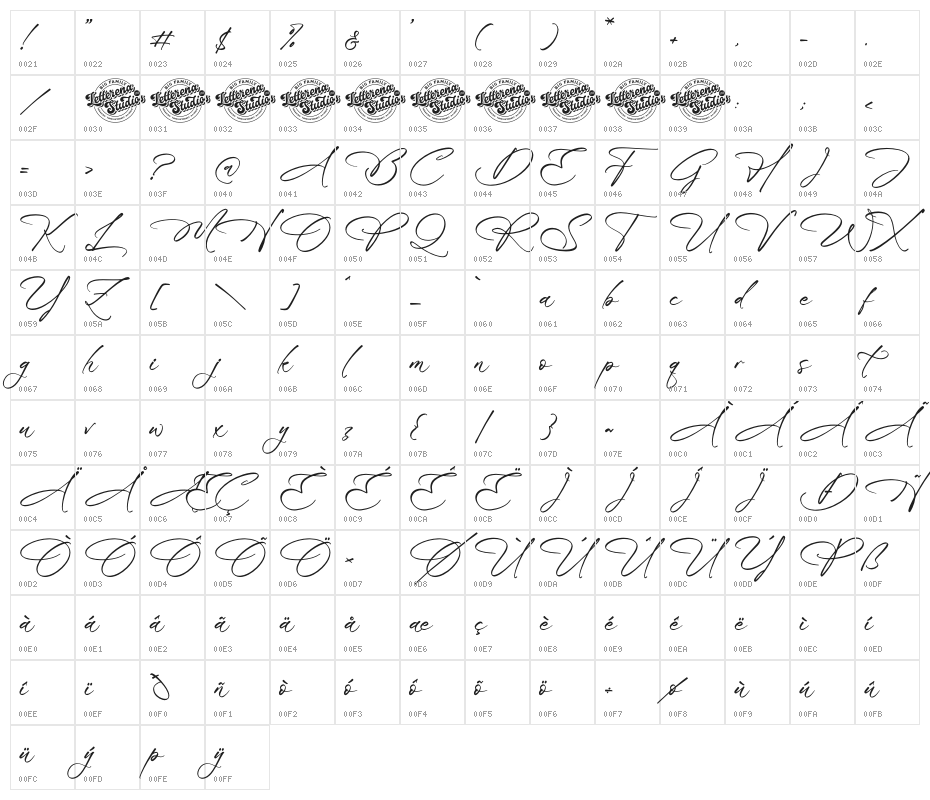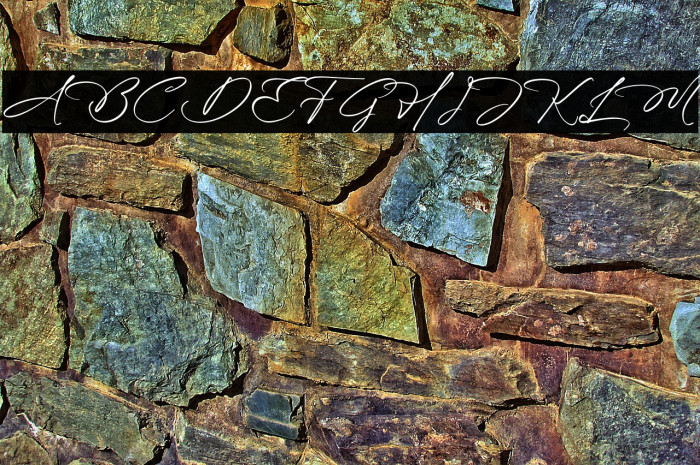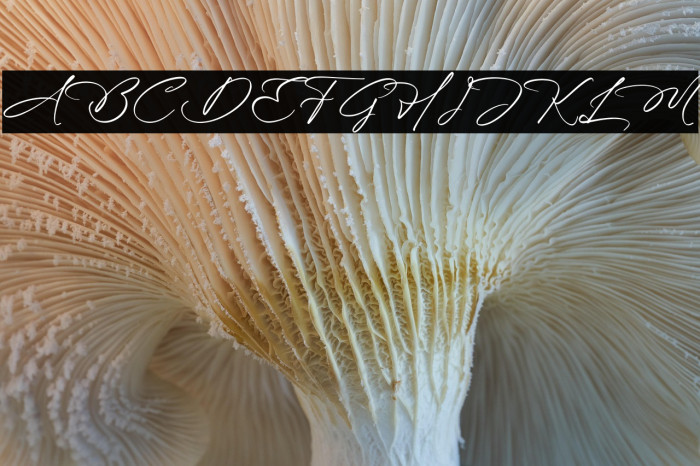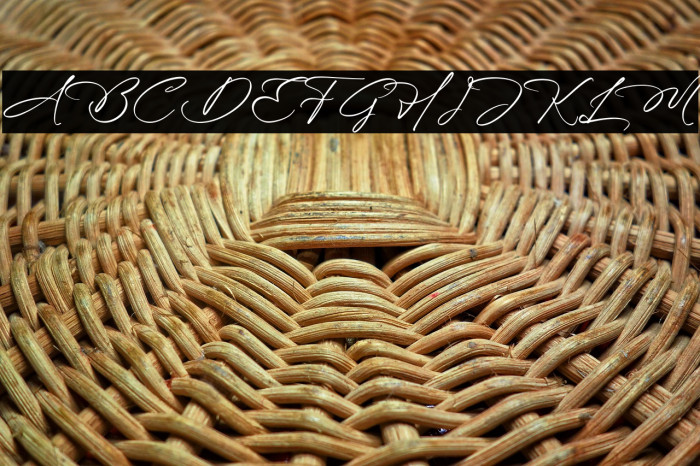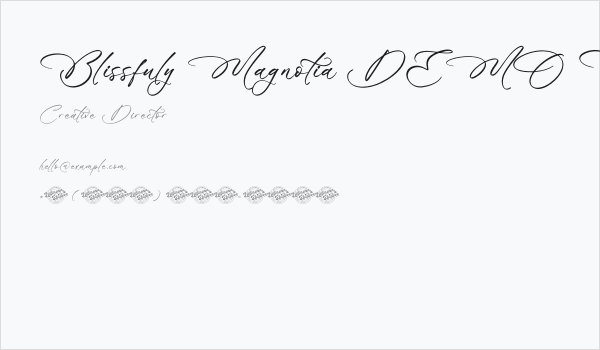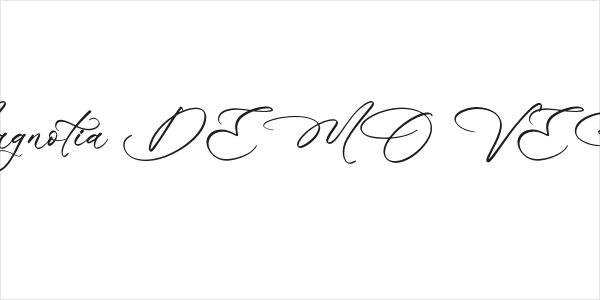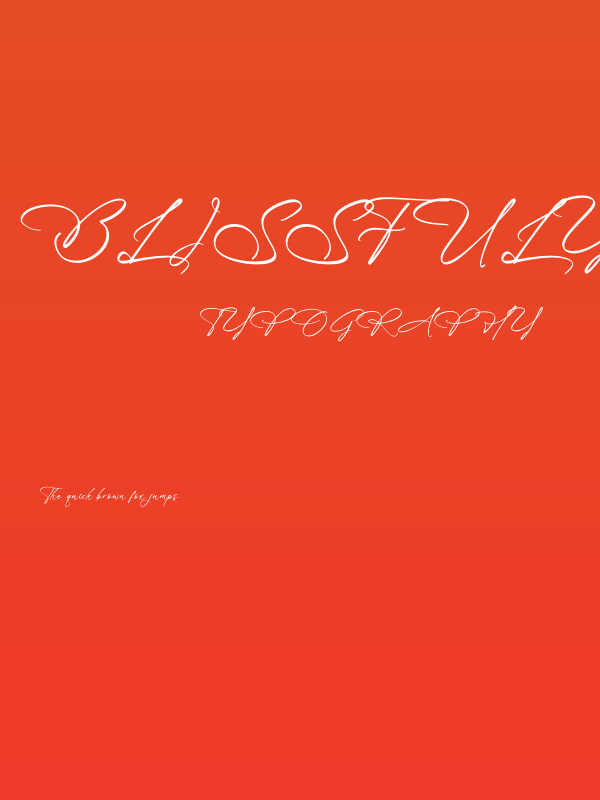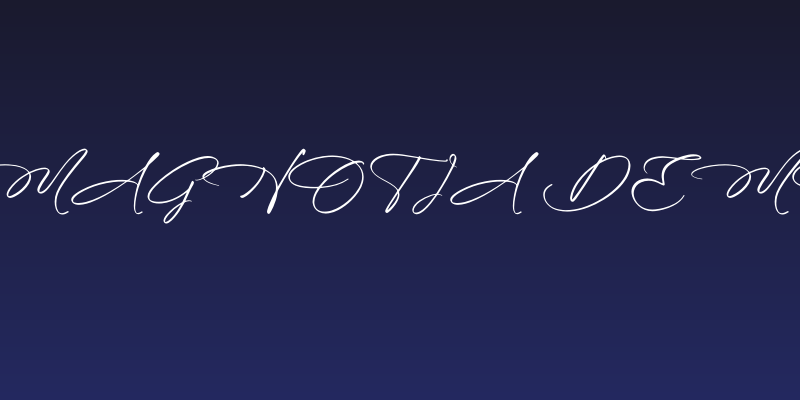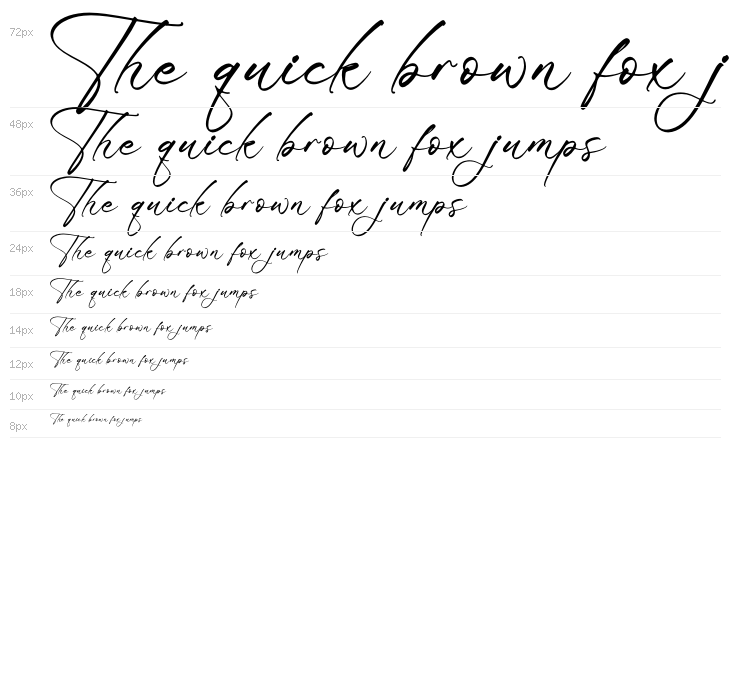
Blissfuly Magnotia DEMO VERSION Font
Blissfuly Magnotia DEMO VERSION Description
Elegant, flowing script font with high contrast and expressive, hand-drawn strokes; uppercase letters are ornate and airy, while lowercase letters are bold and dynamic with dramatic ascenders and descenders.
| Overall Style | Decorative, Elegant, Handwritten |
| Use Case | Logos, Invitations, Headlines, Decorative text |
| Proposed Projects | Wedding invitations, branding, greeting cards, social media graphics, elegant packaging. |